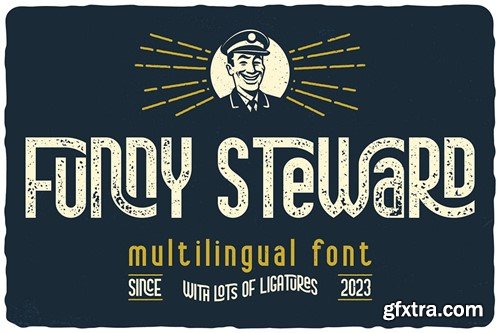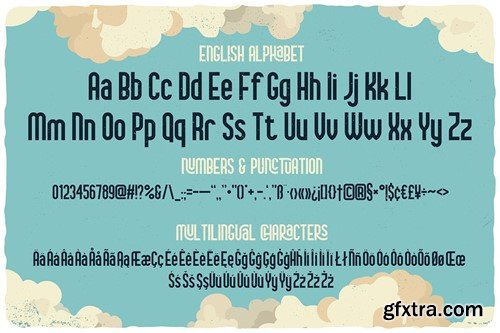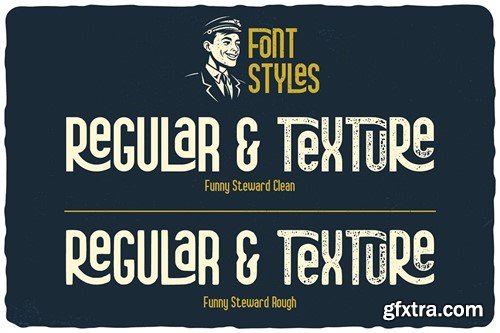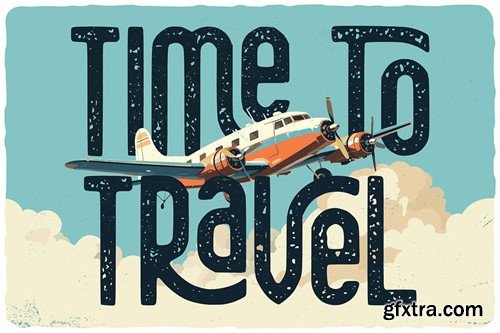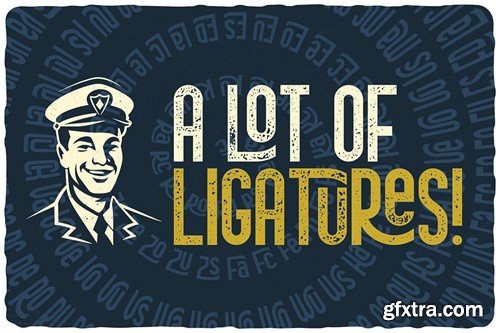
Funny Steward Display Font
Unique playful, vintage & decorative sans serif font. Comes with multilingual support & ligatures - great for your new logo or branding project.
• Multilingual support
• Great for retro or vintage style branding projects